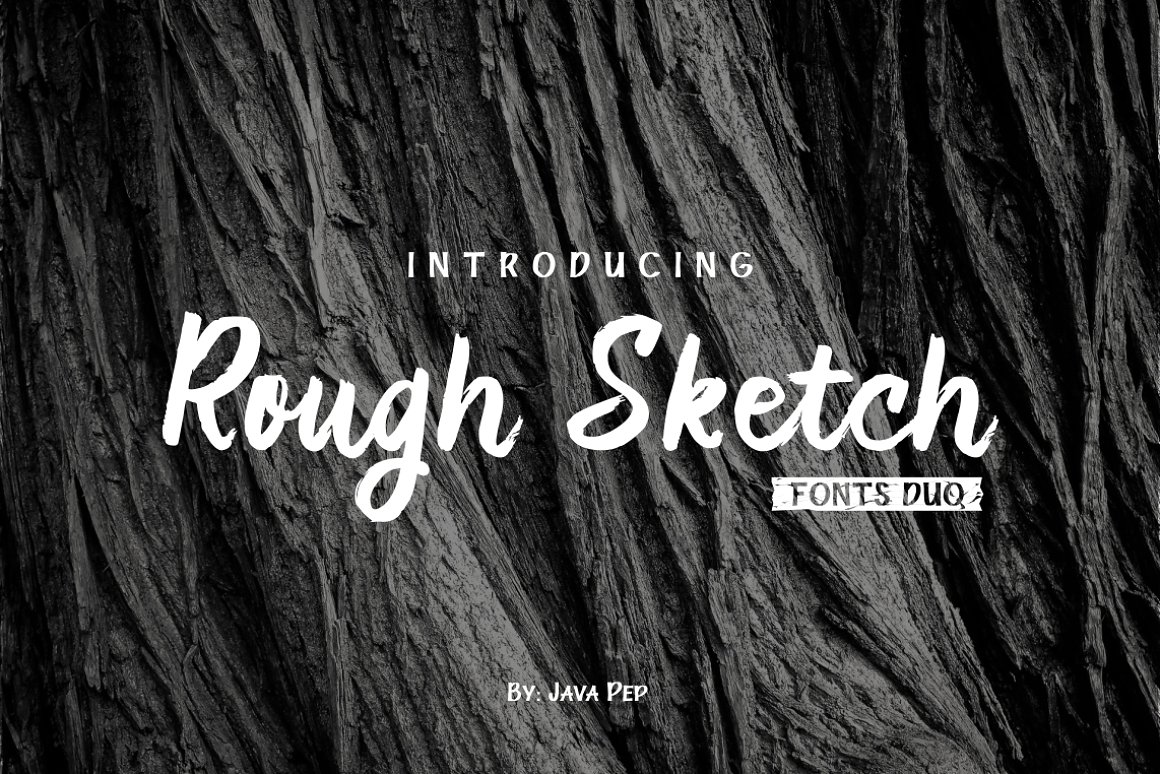
Rough Sketch
Rough Sketch Script Font
Introducing Rough Sketch fonts duo. Rough Sketch is unique font not like regular font in commonly. This font have caracther like the name “rough” but yet elegant. Rough Sketch suitable use for stand out and contradiction themes. This font also elegent for logo, web subttile, poster, quote, book or magazine cover, poster etc.